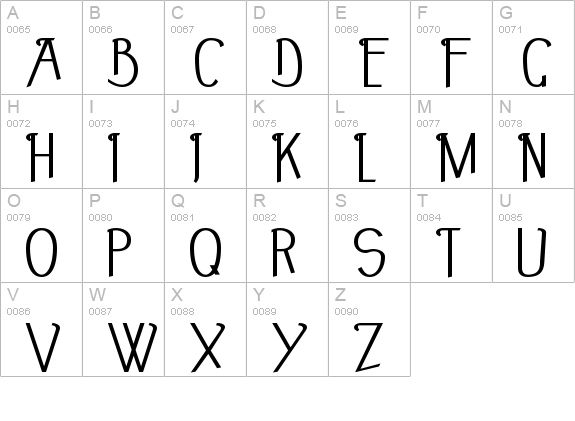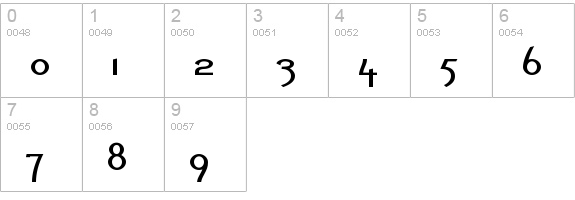
Noir-et-Blanc Bold Font Details
Noir-et-Blanc Bold is a strong, high-contrast variant in the Noir typeface family \xE2\x80\x94 well suited to headlines, attention-grabbing titles, and strong calls-to-action.
Noir-et-Blanc Bold is a striking and elegant font that exudes sophistication and modernity. With its bold and clean lines, this typeface is perfect for creating eye-catching headlines, logos, and branding materials. The contrast between the black and white elements adds a touch of drama and flair to any design project. The best part? Noir-et-Blanc Bold is completely free to download at FontsMarket.com. Whether you are a graphic designer looking to add a touch of class to your projects or a business owner wanting to make a bold statement with your branding, this font is sure to impress. Don't miss out on this fantastic opportunity to elevate your designs with the timeless beauty of Noir-et-Blanc Bold. Download it today and let your creativity shine!